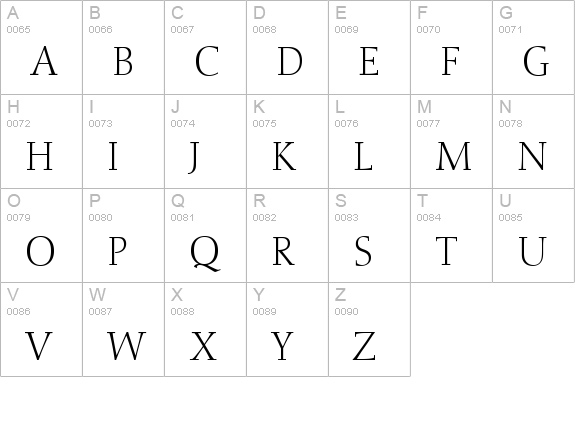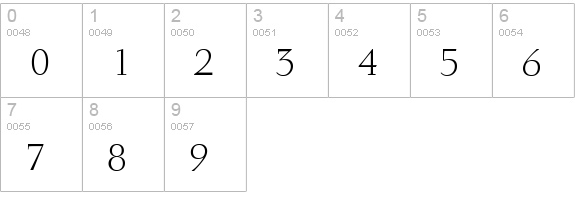
Nofret BQ Light is a refined, elegant variant in the Nofret typeface family \xE2\x80\x94 well suited to elegant body text, refined sub-headings, and luxury branding.
Nofret BQ Light font is a sleek and modern typeface that exudes elegance and sophistication. With its clean lines and delicate curves, this font is perfect for creating a refined and polished look in your designs. The light weight of the font adds a touch of subtlety and grace, making it ideal for use in a variety of projects. What makes Nofret BQ Light font even more appealing is that it is available for free download at FontsMarket.com. This means that you can easily access this beautiful font and use it in your personal and commercial projects without any cost. Whether you are designing a logo, creating a website, or working on a print project, Nofret BQ Light font will add a touch of sophistication and style to your work. Download it today and elevate your designs with this elegant and versatile typeface.